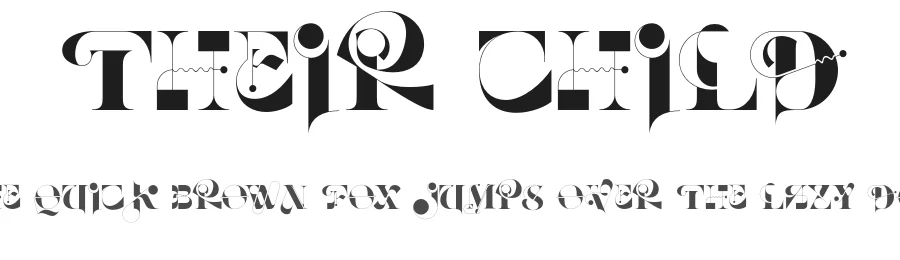
About King Education Center Font
King Education Center is a decorative font designed by Yujin Chun. It includes 96 glyphs, a regular weight, TTF (TrueType) format, and 107 languages. King Education Center is free to download; check the license details on this page before commercial use. Decorative fonts like King Education Center work best for logos, posters, packaging, and standout headlines.
King Education Center Font is a decorative font that shines as a display or heading face. Pair it with a clean sans-serif or serif font for body text β the contrast creates a clear hierarchy while the two styles stay balanced and easy to read.
King Education Center Font
by Yujin Chun